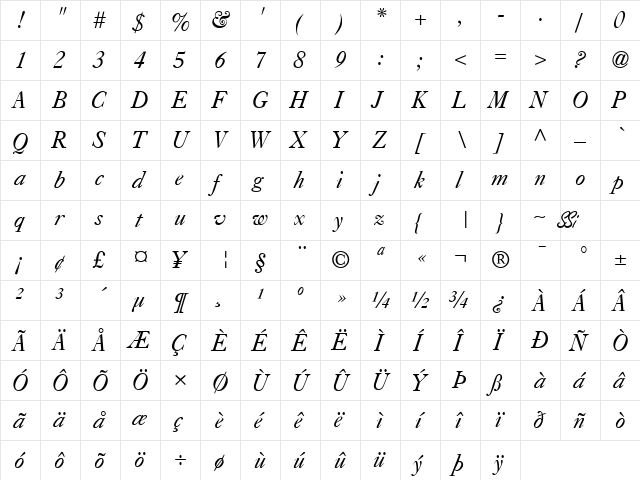
Caslon Five SSi Italic
Design Context for Caslon Five SSi Typeface
Caslon Five SSi takes a measured approach to typography — its balanced proportions and neutral character make it a reliable workhorse for both digital and print work. The dynamic lean of this cut emphasises speed and emphasis in any layout.